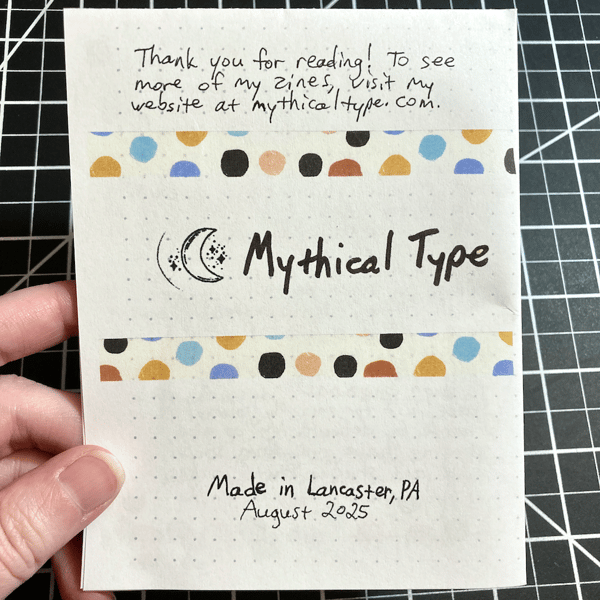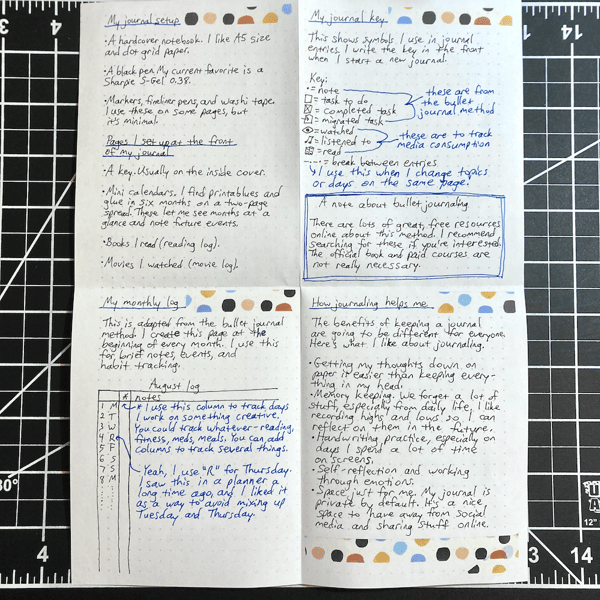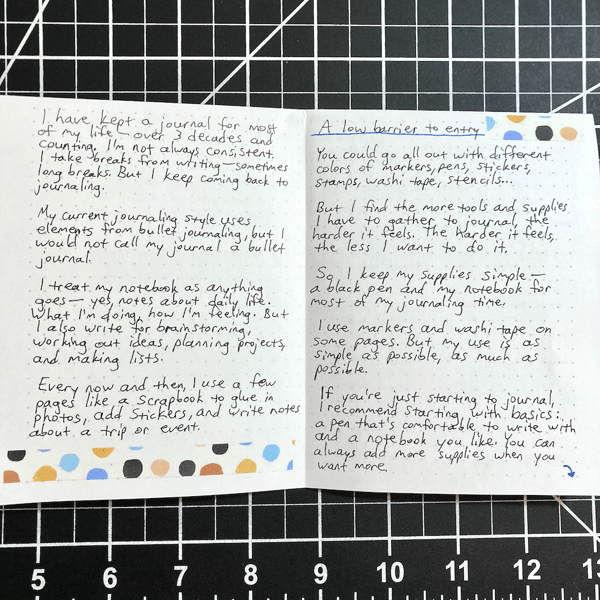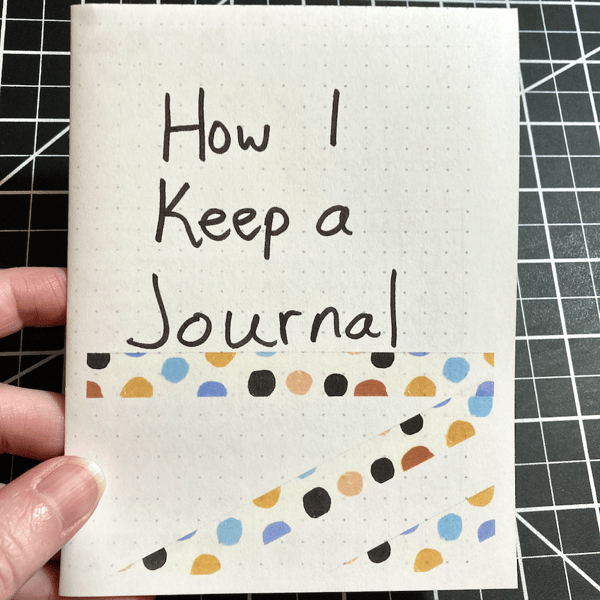
How I Keep a Journal
I got a few zines from from Veronique and Sierra DeCarmen that use the French fold format, and I was inspired to try it myself.
"How I Keep a Journal" is a zine about my journaling habit. It includes a short background on my journaling style, how I set up my notebook, and how journaling helps me. I wrote everything by hand, which is not my norm for zines with a lot of text. 😅 But it fits the journaling theme.
The zine is printed in color, double-sided, on white 8.5x11-inch paper.